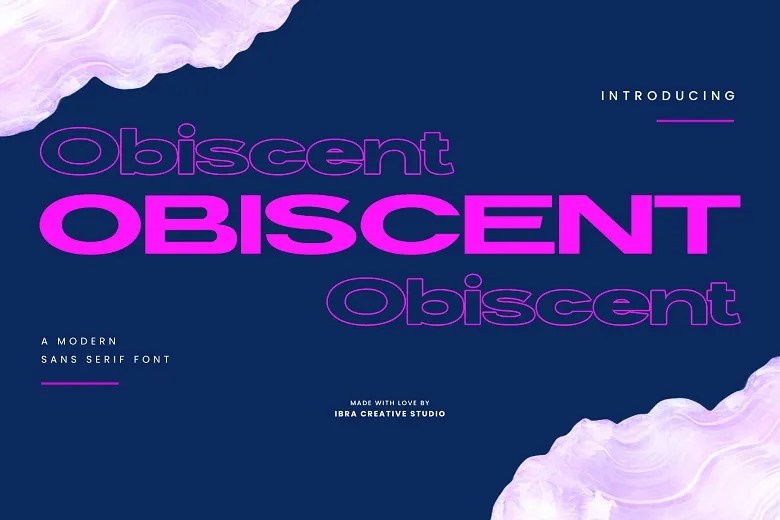
Obiscent Font
Obiscent is a sleek, modern sans-serif font that embodies the essence of contemporary design. Its minimalistic and elegant appearance makes it a standout choice for various design projects, offering a blend of style and functionality.
Key Features of Obiscent:
• Contemporary Design: Obiscent captures the spirit of modern design with its clean, streamlined aesthetic. The font’s minimalist approach ensures that it remains timeless and versatile across different design applications.
• Elegant and Classy: The font’s neat lines and balanced proportions lend it a sophisticated look, making it an ideal choice for projects that require a touch of elegance. Whether used in branding, interior design, or digital media, Obiscent adds a refined touch.
• Versatile for Multiple Uses: Obiscent’s clean design makes it suitable for a wide range of applications, from room decor to digital platforms. Its clarity and legibility ensure that it performs well on both large displays and smaller items, maintaining its impact across various mediums.
• Legibility Across Platforms: One of Obiscent’s standout features is its ability to remain highly legible without sacrificing style. This makes it a reliable choice for both print and digital use, ensuring that your message is conveyed clearly and effectively.